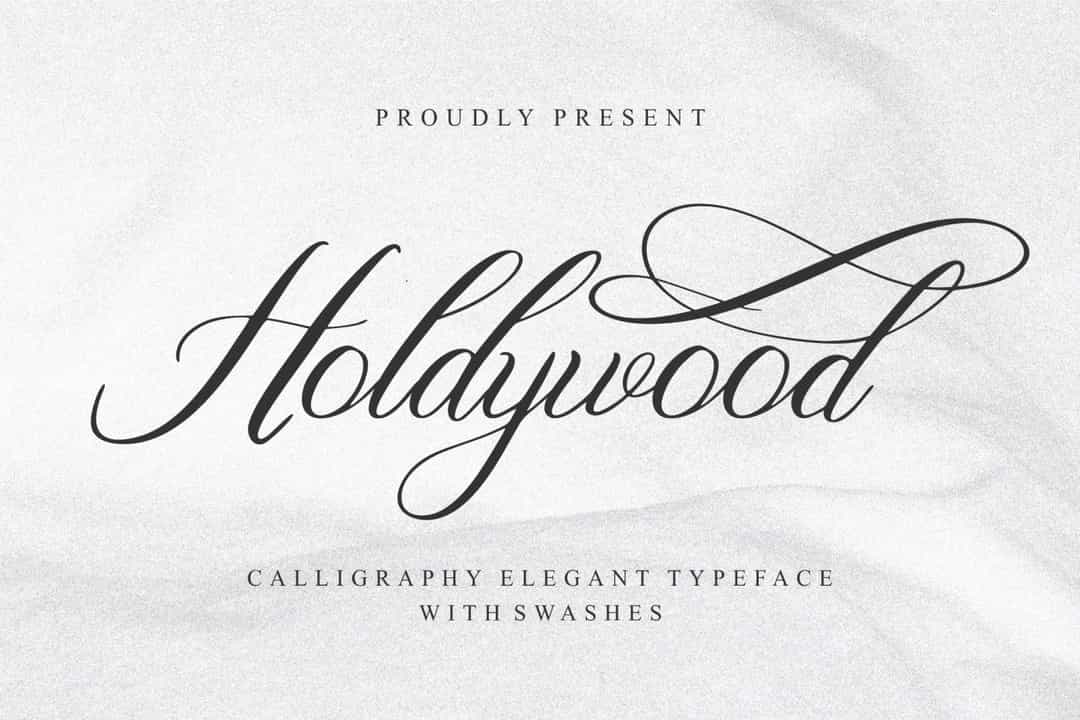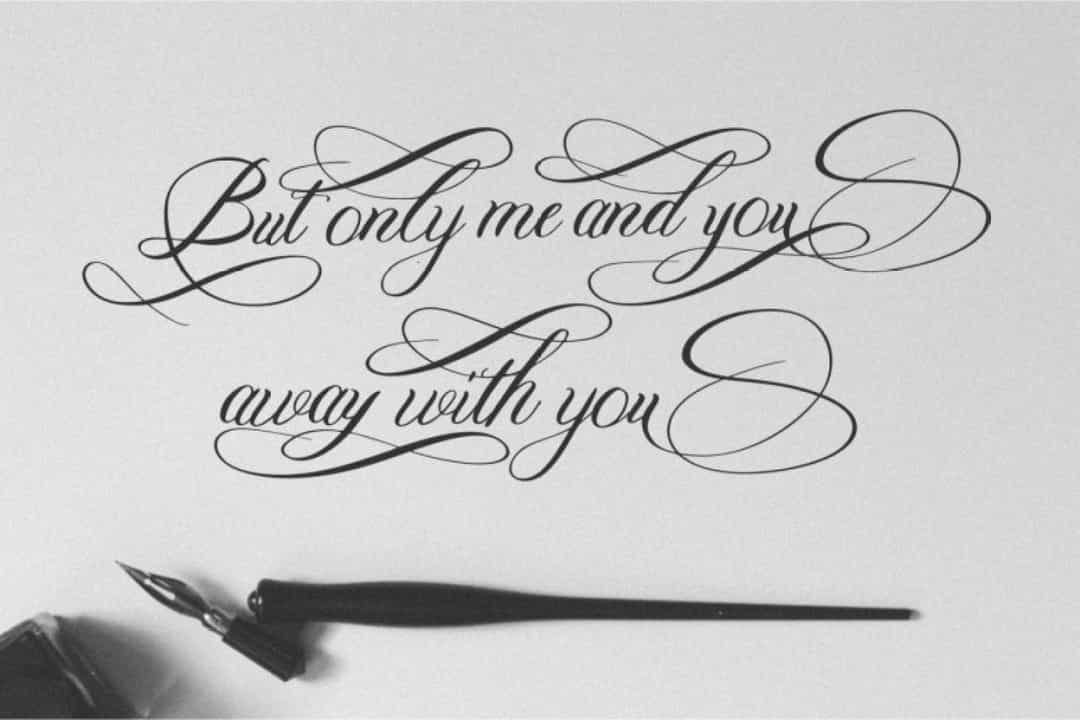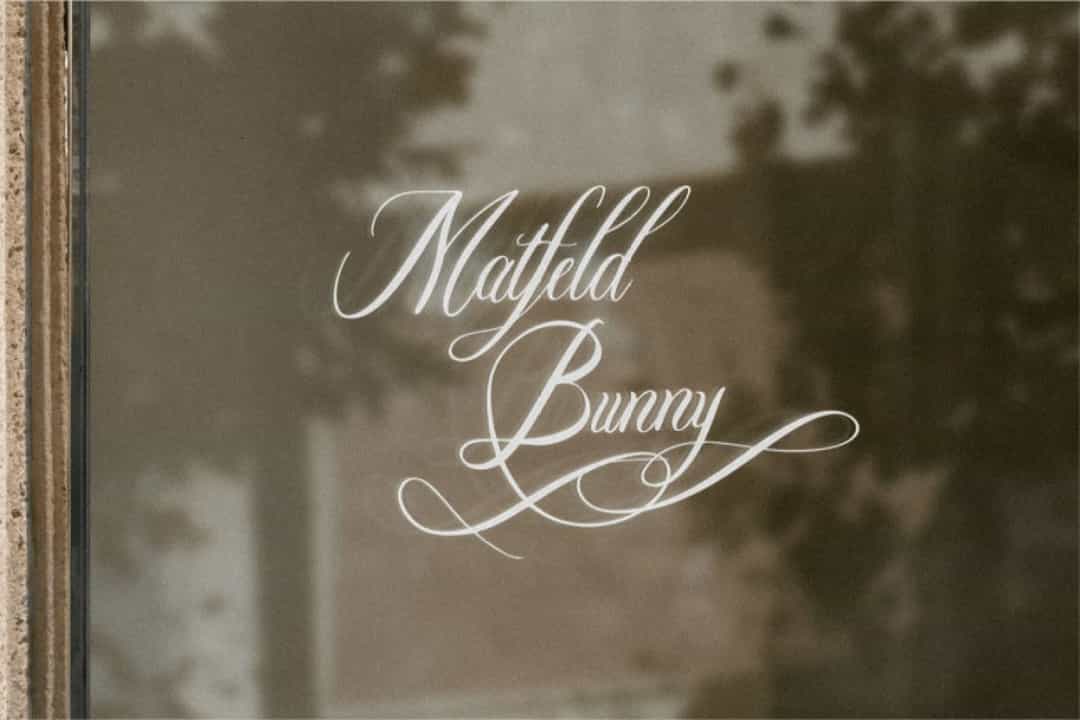
Discover Holdywood Font, part of the Calligraphy collection—a versatile and unique font perfect for adding a personal touch to your projects. Download it for free and enjoy crafting designs with style, from invitations to social media posts. This font is available exclusively for personal use, giving you the freedom to create without limits. Unlock your creativity with Holdywood Font today!
It’s a renowned and professional typeface for calligraphy. It’s Modern stylish and classy, this font is composed of gorgeous artistic strokes. This font is great for your ideas that are creative informal and formal. It is modern in design with a hint of imaginative ideas. It is appropriate for any situation where you need to think of new ideas.